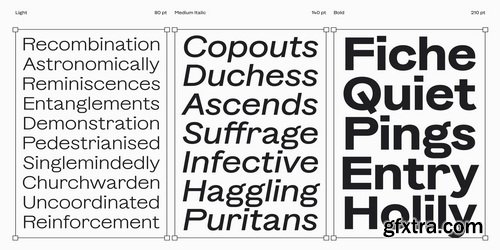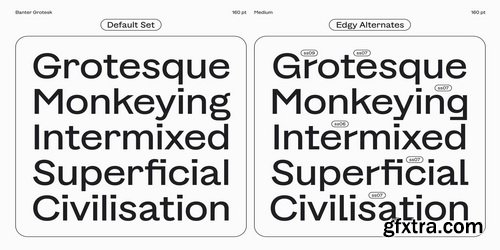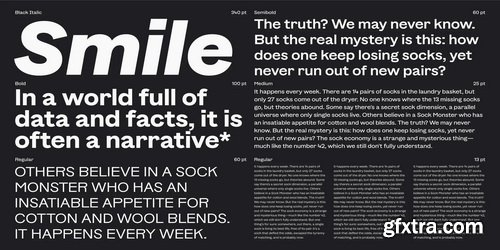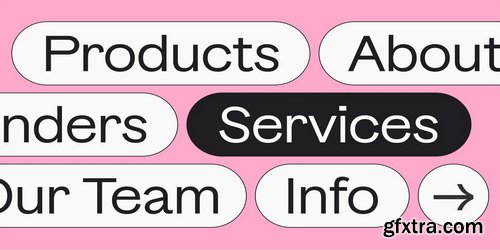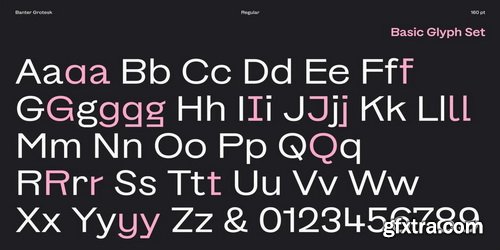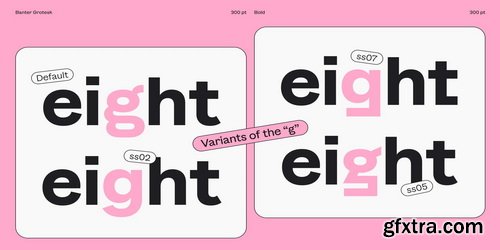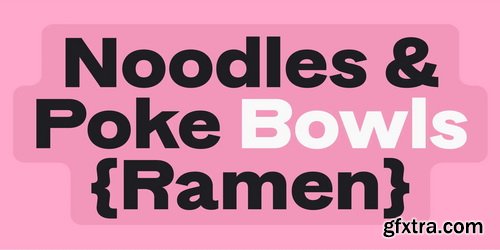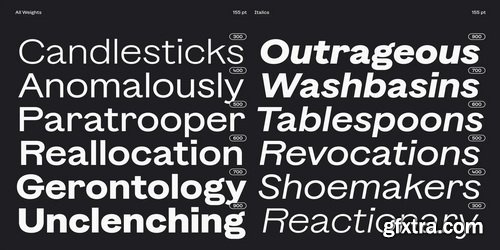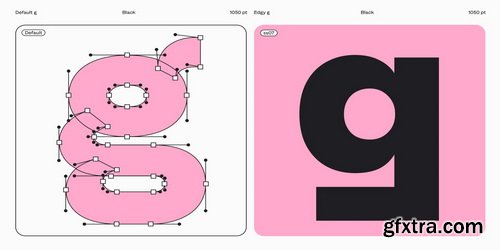
Banter Grotesk is a playful and quirky sans serif font family, available in 12 styles. True to its name, Banter Grotesk has a rebellious streak and loves to go against the grain. Its proportions break the traditional rules of symmetry, flipping them upside down. This is especially evident in the capitals and numbers, where the tops of the letters often outweigh the bottoms—creating subtle tension and injecting a burst of playful energy into the typeface. The angled terminals further enhance its lively character. Perfect for playful branding, visual identities, logo design, web and app interfaces, as well as editorial and print projects, Banter Grotesk adapts to your creative vision with flair and flexibility.